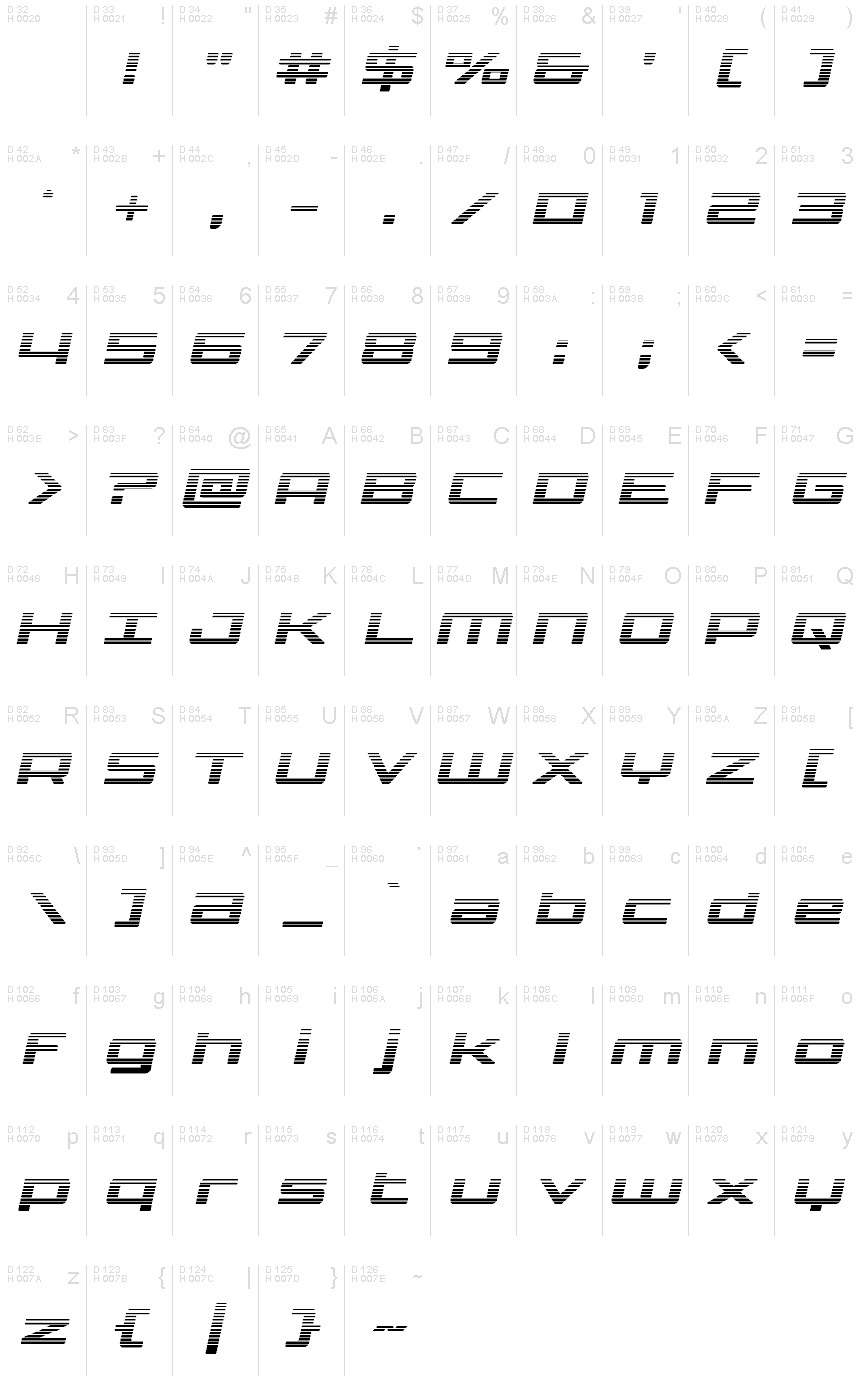
Phoenicia Lower Case GradienIt
Phoenicia Lower Case Gradient Italic font by Iconian Fonts is a techno display font with an expanded width. This geometric typeface communicates a digital-inspired and futuristic vibe which truly shows on mediums associated with the topics of technology and science. Feel free to rely on this structured typography in your projects for a balance of professionalism and beauty.